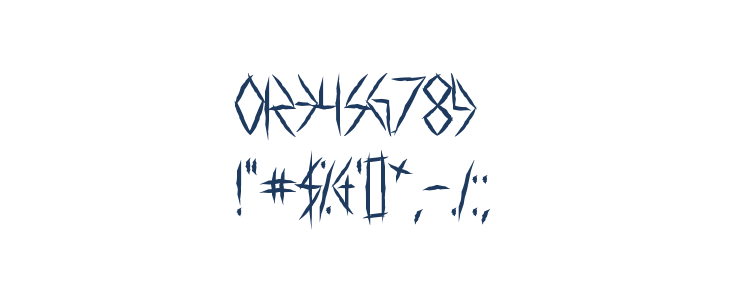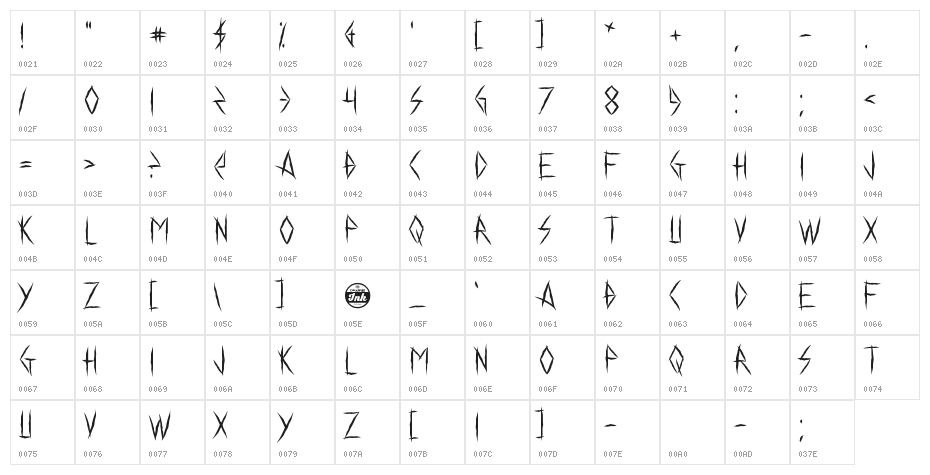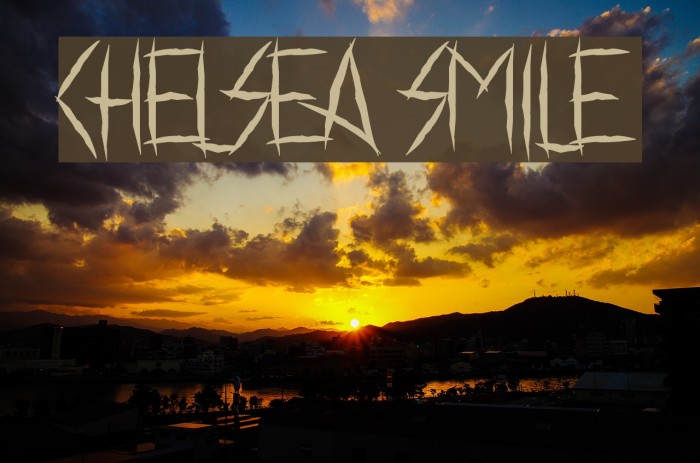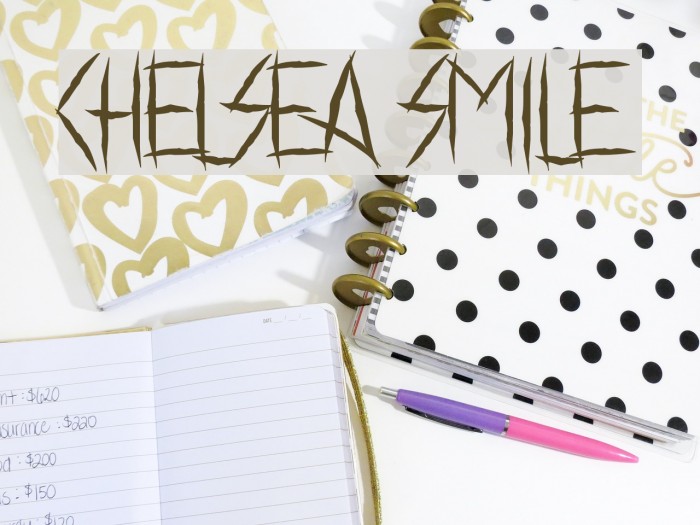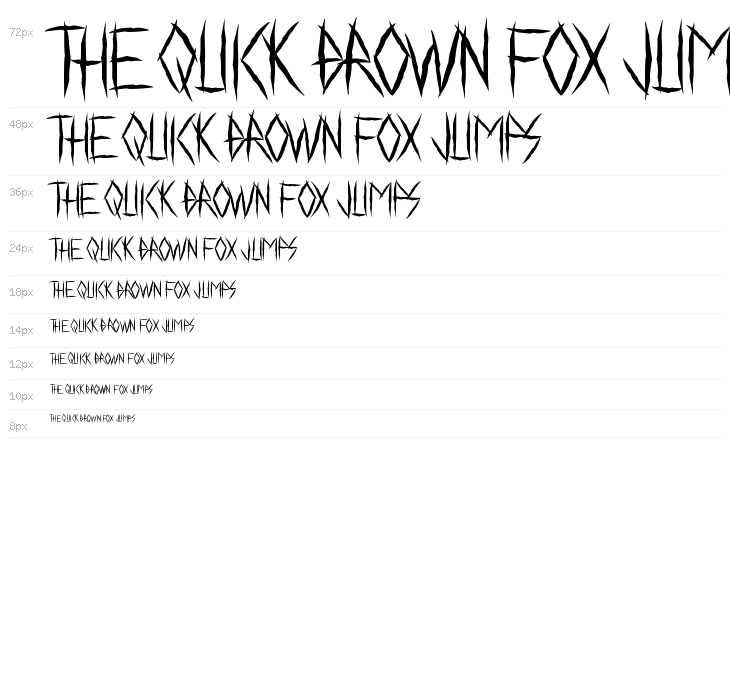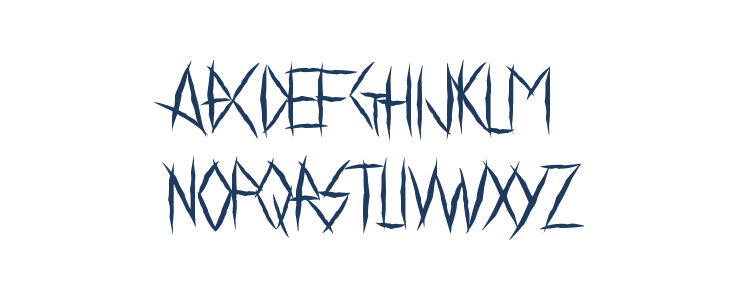
Chelsea Smile Font
Chelsea Smile Description
This font features a jagged, edgy design with sharp, angular lines that give it a distinctly aggressive and rebellious appearance. The characters are crafted with irregular strokes, resembling hand-drawn or scratched letters, which contribute to its raw and unrefined aesthetic. The uppercase and lowercase letters maintain a consistent style, with exaggerated points and uneven edges, creating a sense of movement and intensity. The numbers and special characters follow the same design principles, ensuring a cohesive look throughout. This font is ideal for projects that require a bold and striking visual impact, such as band posters, album covers, or horror-themed designs.
| Use Case | Logos, Headlines |
| Proposed Projects | Ideal for band posters, album covers, horror-themed designs, and edgy branding. |